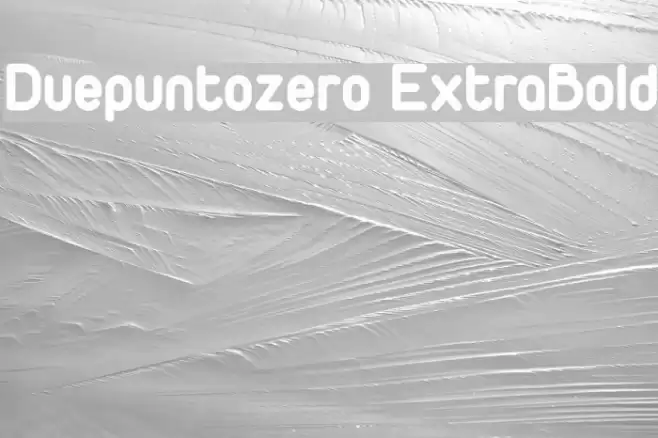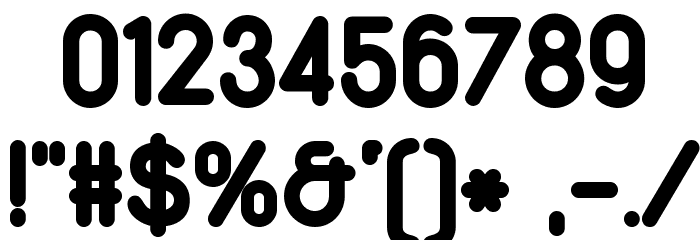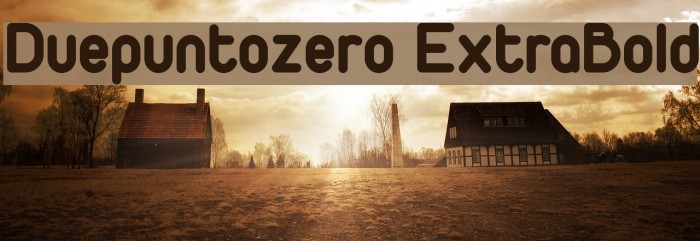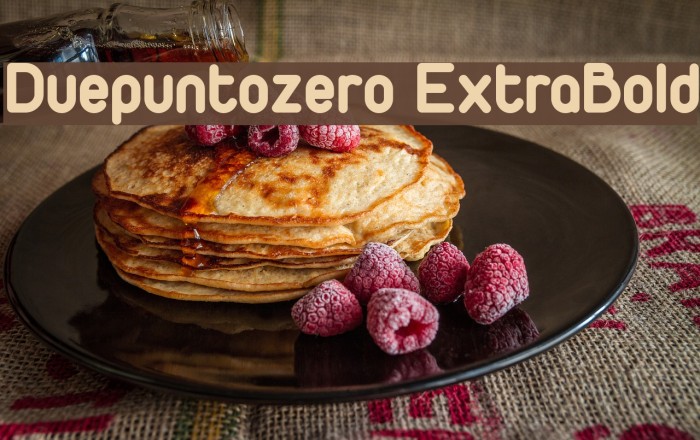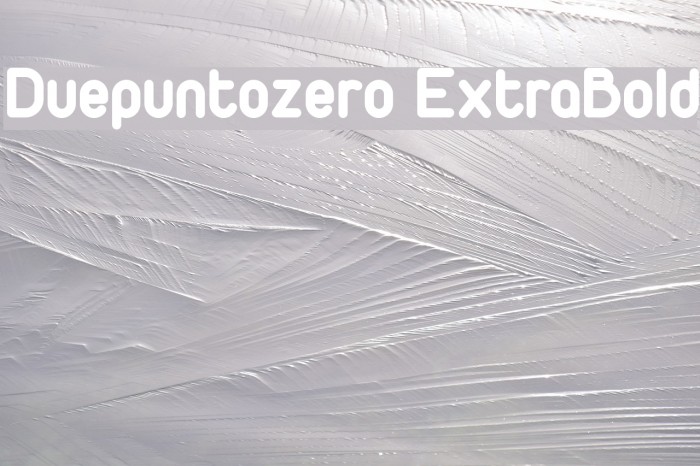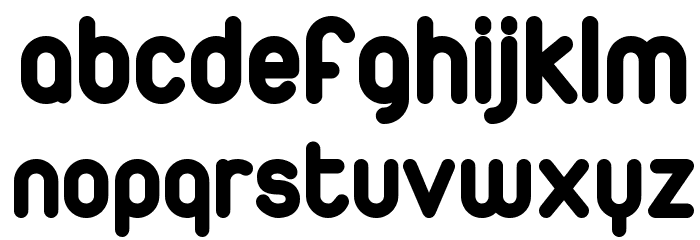
Duepuntozero ExtraBold
This font features a bold and rounded style, characterized by its smooth curves and uniform stroke width. The letters are designed with a modern aesthetic, offering a playful yet professional appearance. The uppercase and lowercase characters maintain a consistent height, providing a balanced look. The numerals and special characters are crafted to match the overall style, ensuring coherence across different text elements. Its rounded edges give it a friendly and approachable feel, making it suitable for a variety of design applications.
A bold, rounded font with a modern and playful aesthetic.
- Proposed Projects: Ideal for branding, advertising, packaging, and digital media projects where a modern and approachable look is desired.
- Use Case: Headlines, Logos, Branding